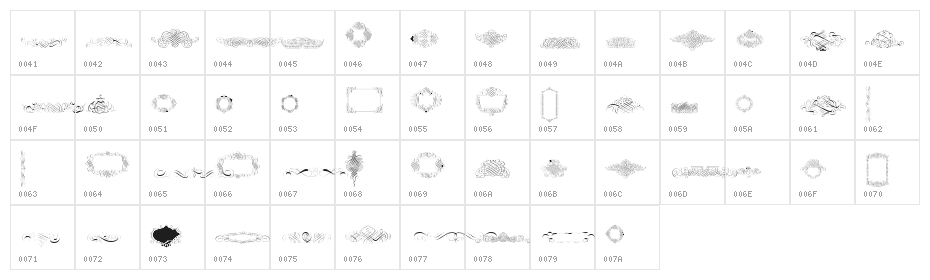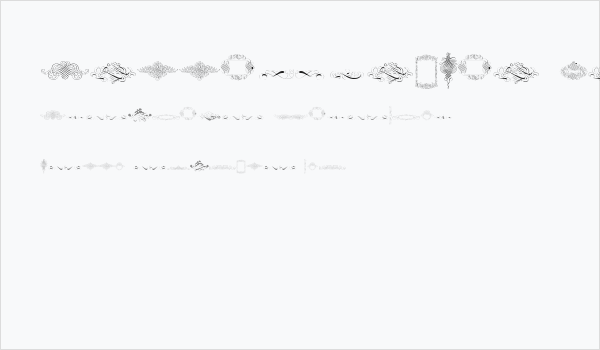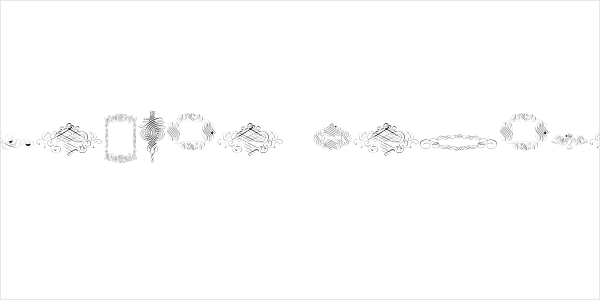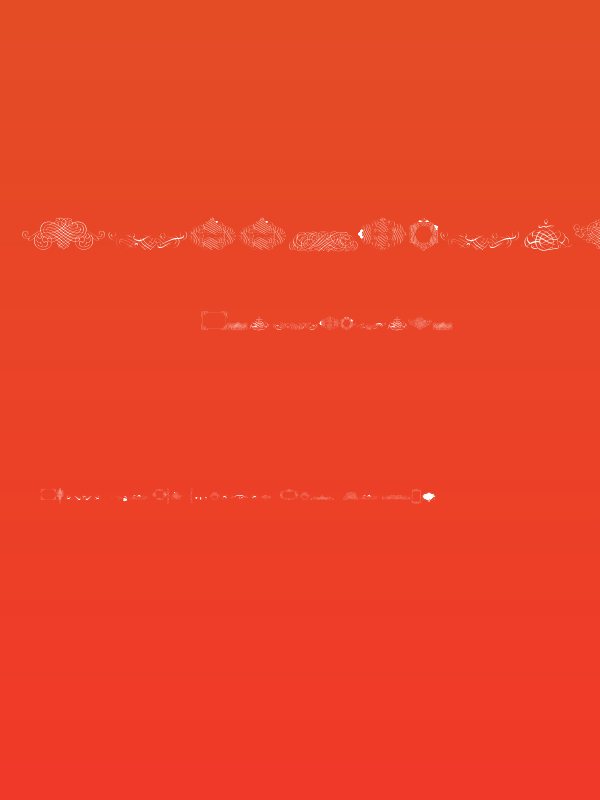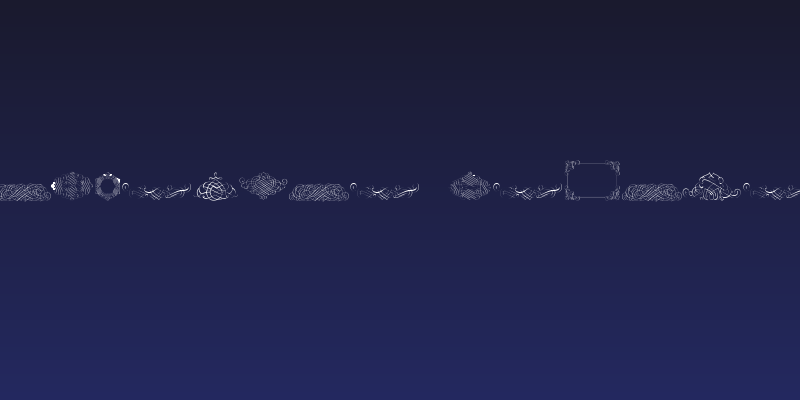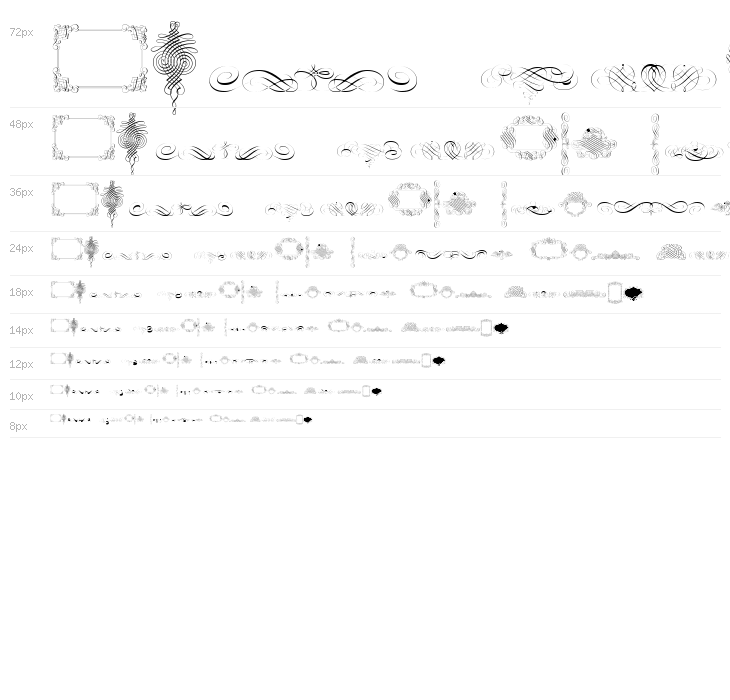
Calligraphia Latina Free Font
Calligraphia Latina Free Description
This is not a traditional font but rather a collection of decorative elements and flourishes. The intricate designs feature elaborate swirls and curls, reminiscent of classic calligraphic embellishments. These elements are perfect for adding a touch of elegance and sophistication to any project. The designs vary in complexity, with some being simple loops and others forming intricate patterns. The overall aesthetic is ornate and vintage, suitable for projects that require a decorative touch.
| Use Case | Decorative elements for various design projects. |
| Proposed Projects | Ideal for wedding invitations, certificates, greeting cards, and decorative borders. |